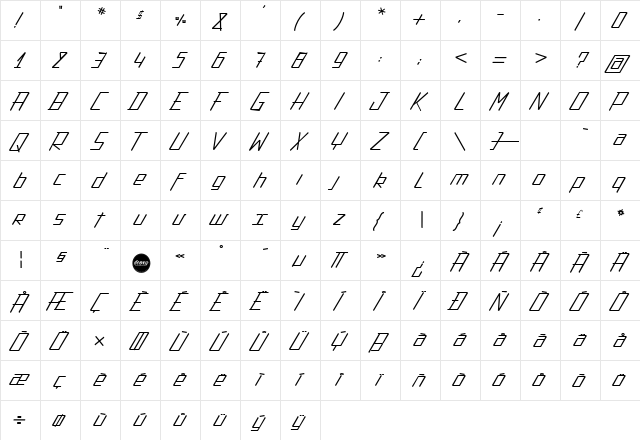
Action Protocol Italic
| Foundry | dcoxy Medina Gregory |
| Designer | dcoxy Medina Gregory |
Design Context for Action Protocol Typeface
Action Protocol offers clean, dependable letterforms without strong stylistic allegiance, making it a practical choice for designers who need flexibility. The dynamic lean of this cut emphasises speed and emphasis in any layout.
Pro Tip: Use Action Protocol for emphasis, pull quotes, and subheadings where its slanted energy can add rhythm to the layout.